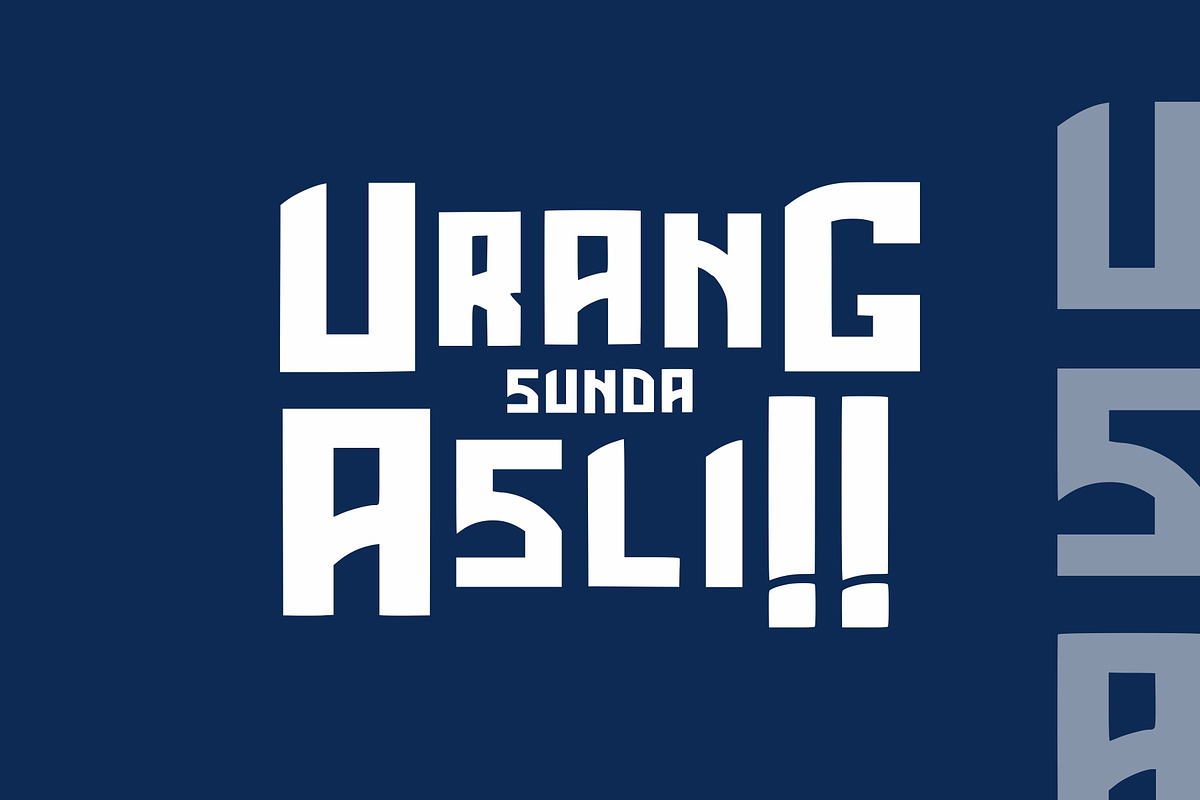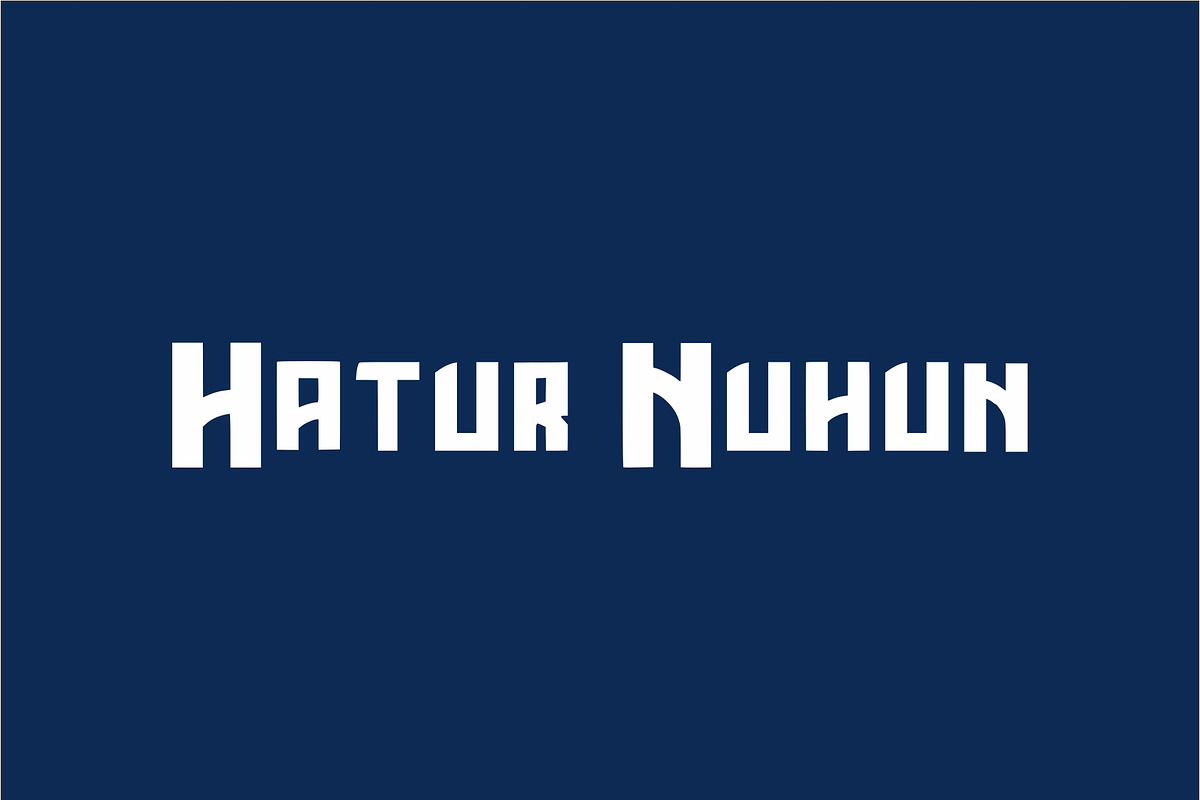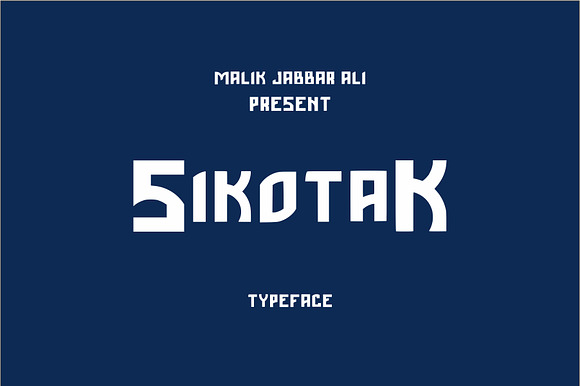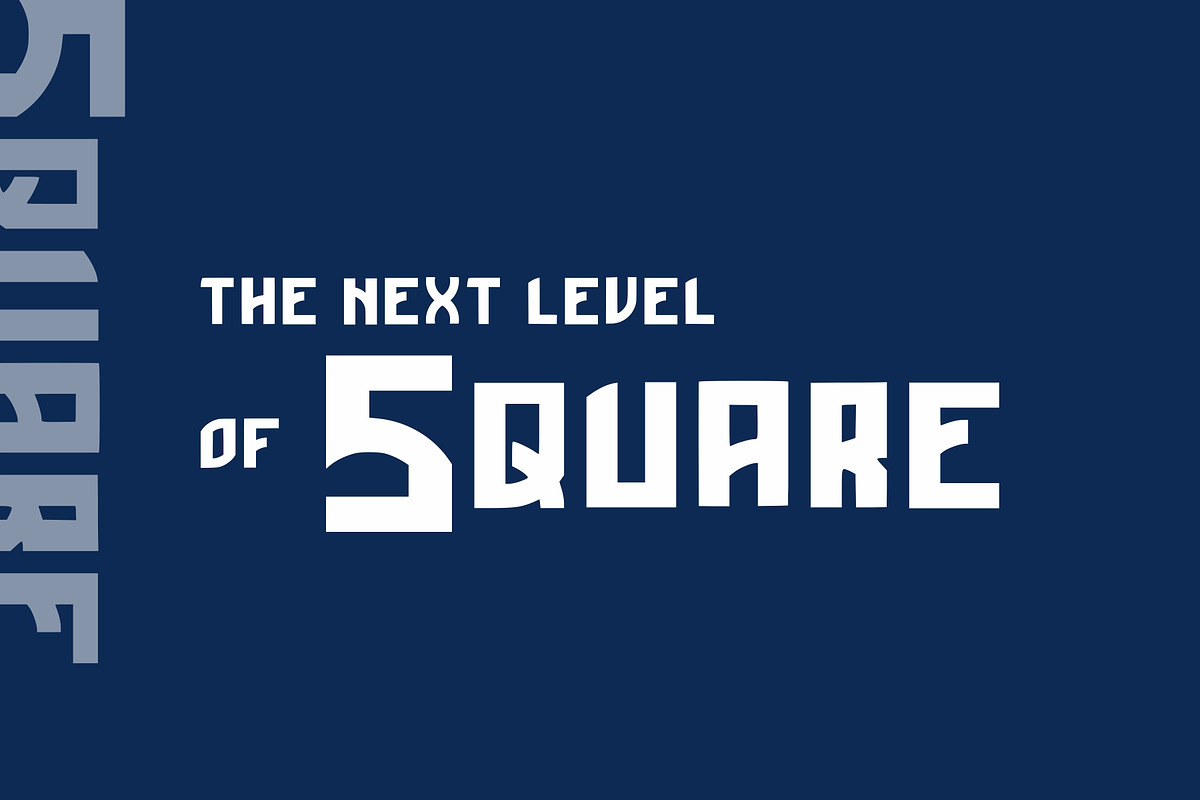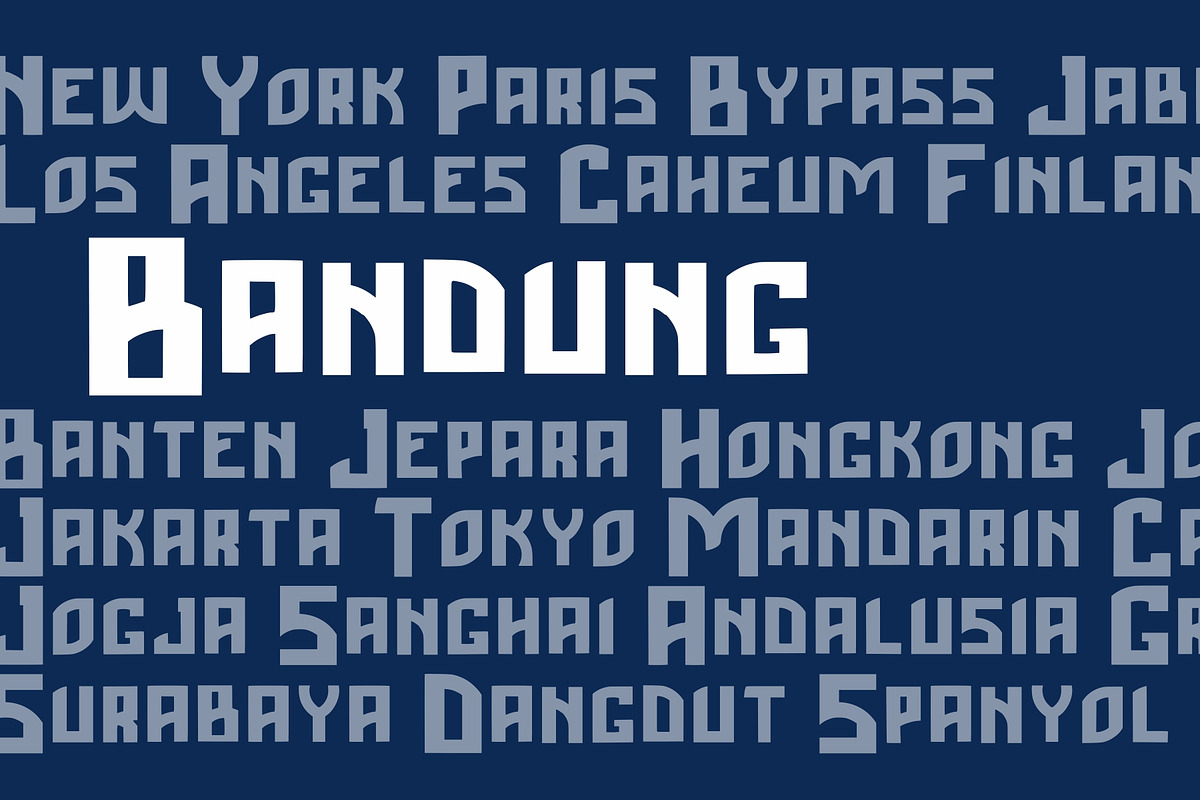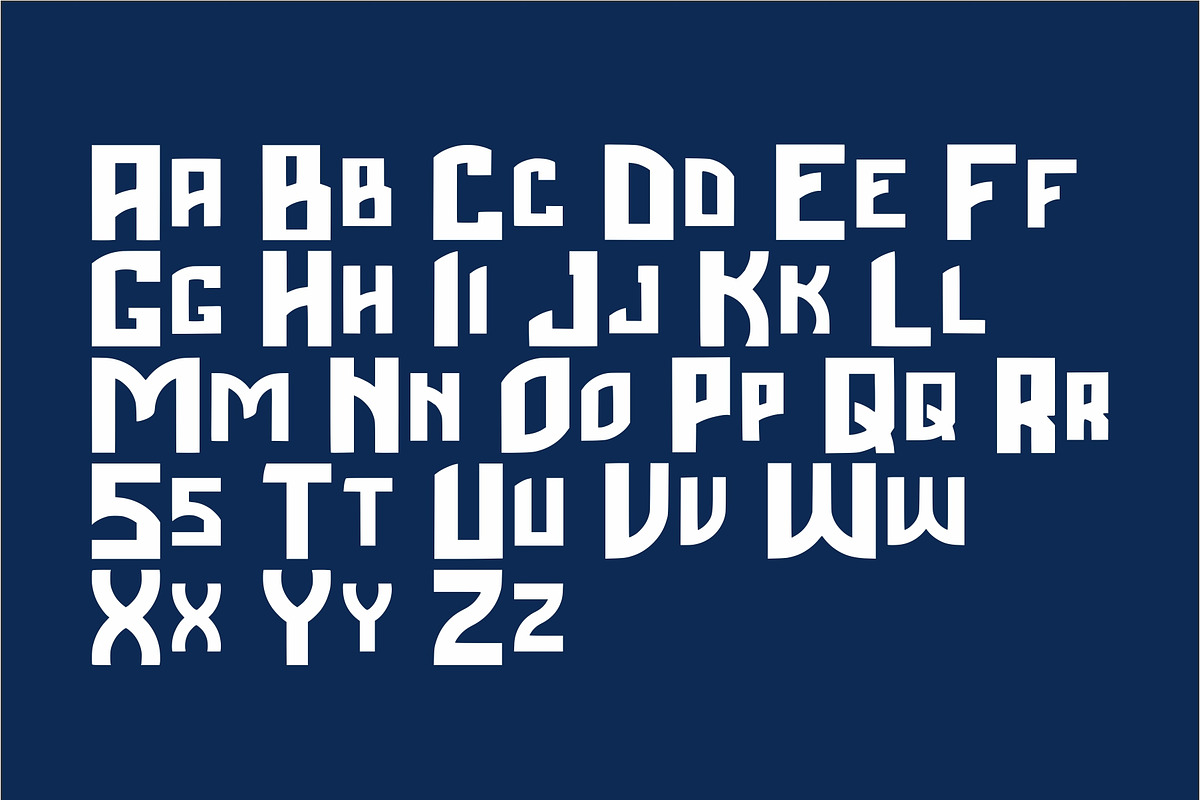
SIKOTAK Typeface
SIkotak is my first font I sell in Creative Market.
This font is suitable for t-shirt design, or whatever you like.
PS: This font only consists of alphabets without numbers or other symbols